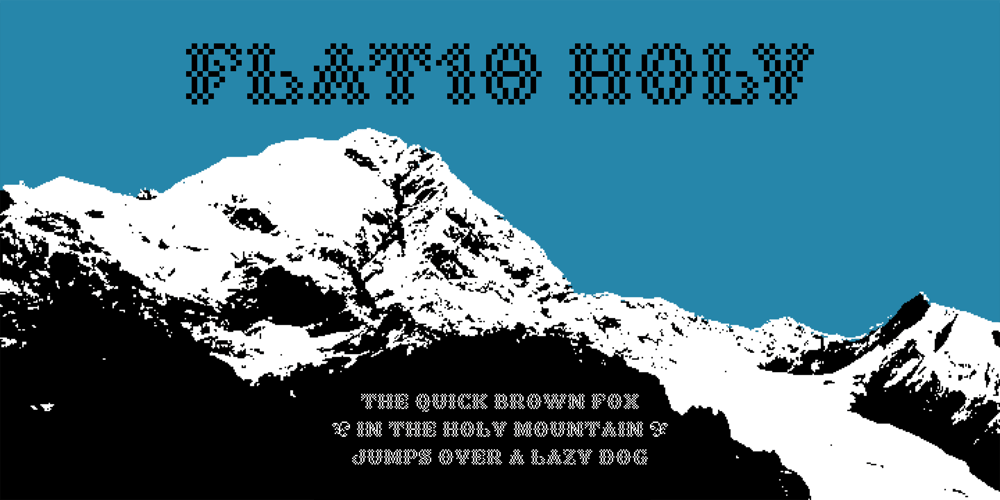
Flat10 Holy Font Family was designed by Ryoichi Tsunekawa and published by Dharma Type. Flat10 Holy contains 1 styles and family package options. Super decorative wood type looking pixel font which has mysterious, elegant and gorgeous impressions. This 8-bit pixel font is designed with respect for 80s game designers and the pixel font pioneers in middle 90s. Use at size 10 pixels or multiples of 10 and anti-alias off is recommended. List of our Pixel Font Project. ·Flat10 Antique ·Flat10 Artdeco ·Flat10 Arts&Crafts ·Flat10 fraktur ·Flat10 Holy ·Flat10 Holly ·Flat10 Segments ·Flat10 Stencil ·Flat20 Gothic ·Flat20 Headline ·Flat20 Hippies ·Flat20 Streamer ·Behrensmeyer Vigesimals ·Civilite Vigesimals